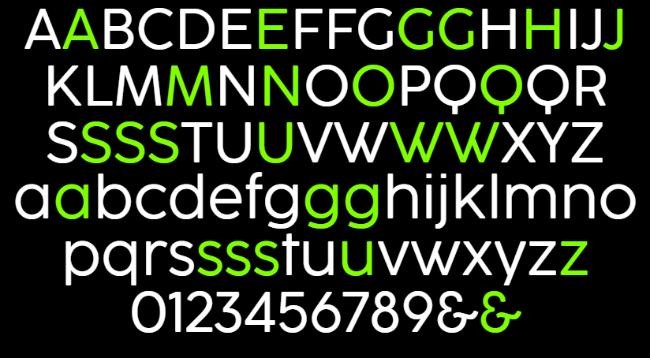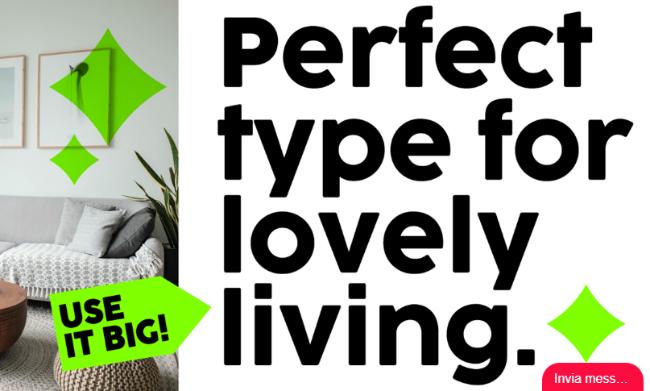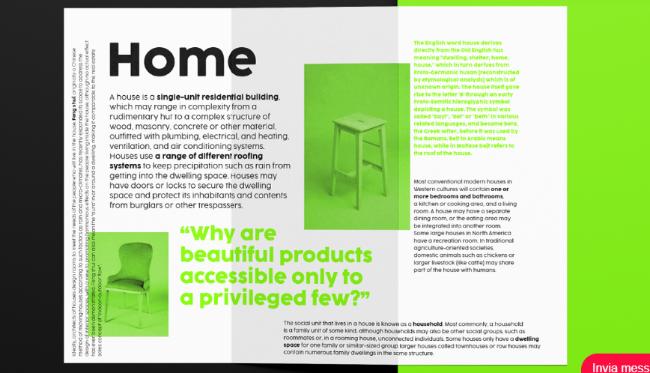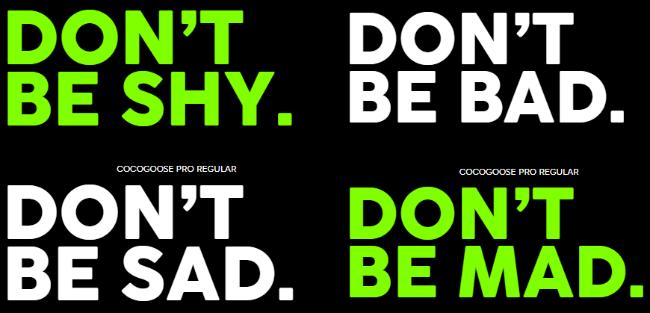
Fonts are more than just letters—they’re personalities on a page. And when it comes to bold, modern, and effortlessly stylish typefaces, Cocogoose stands out. Designed by Zetafonts, this sans-serif font family has become a go-to choice for designers looking for a clean yet distinctive look.
What Makes Cocogoose Special?
Cocogoose is a geometric sans-serif font with a friendly yet professional vibe. Unlike rigid, overly mechanical typefaces, Cocogoose has subtle rounded edges that give it a human-like warmth. It’s versatile enough for branding, logos, headlines, and even body text in some cases.
Where to Use Cocogoose
This font shines in:
✔ Branding & Logos (It’s been used by startups and established companies alike.)
✔ Posters & Advertising (Its bold variants grab attention.)
✔ Web Design (Clean and legible even on screens.)
✔ Editorial Design (Adds a contemporary touch to magazines.)